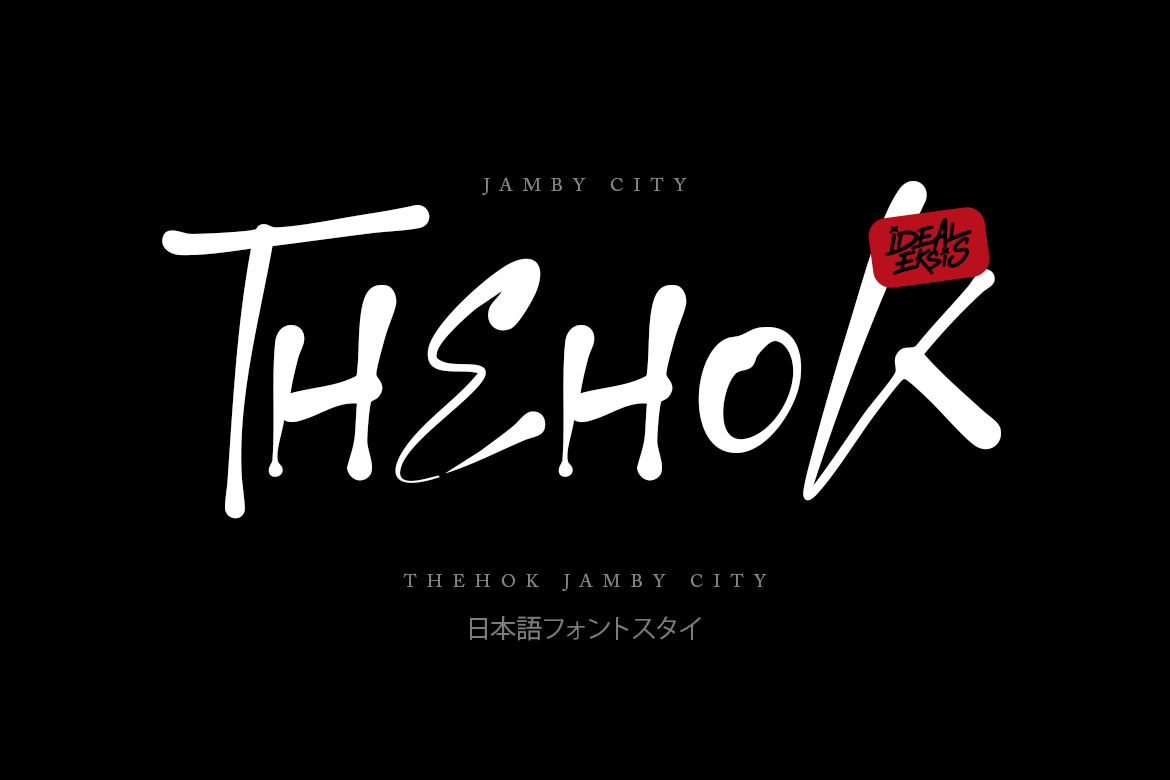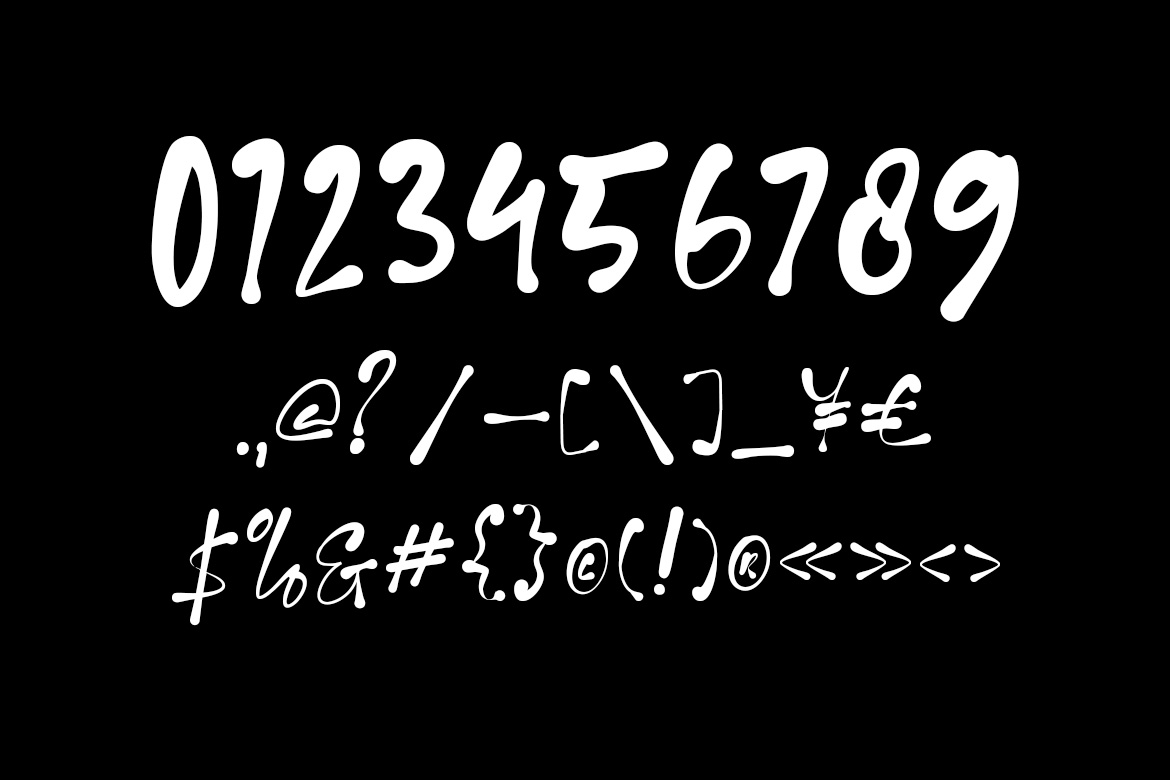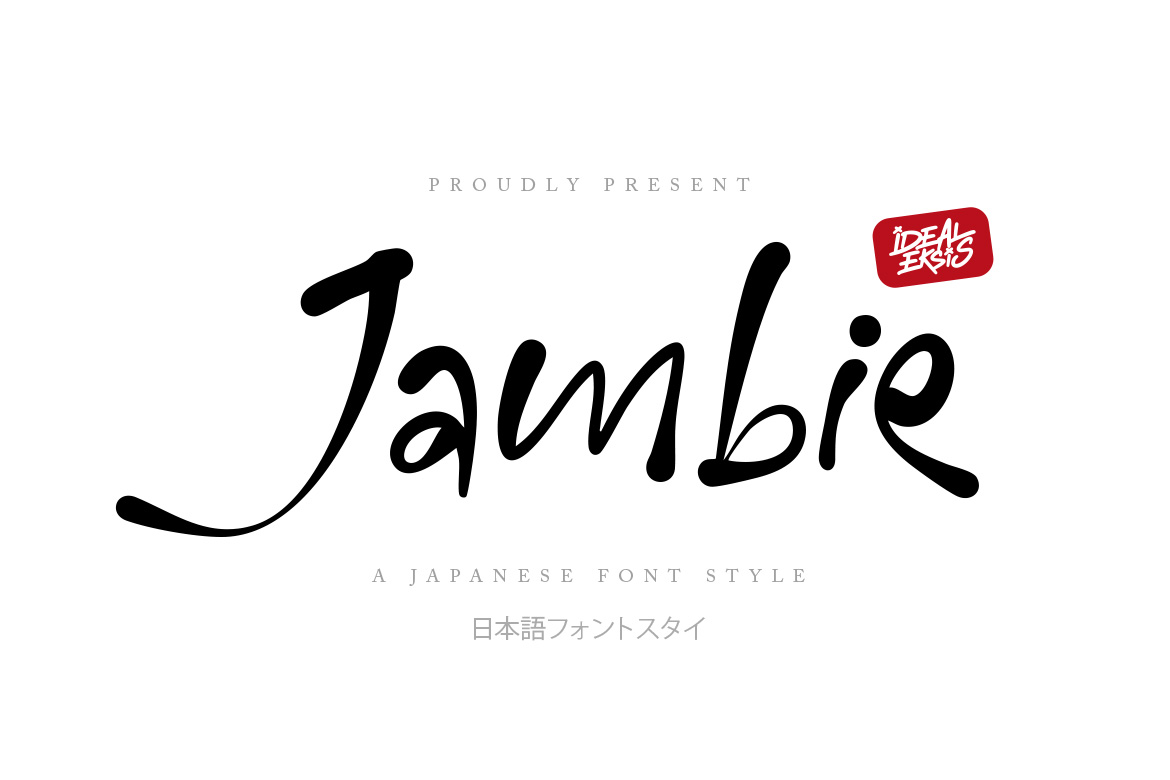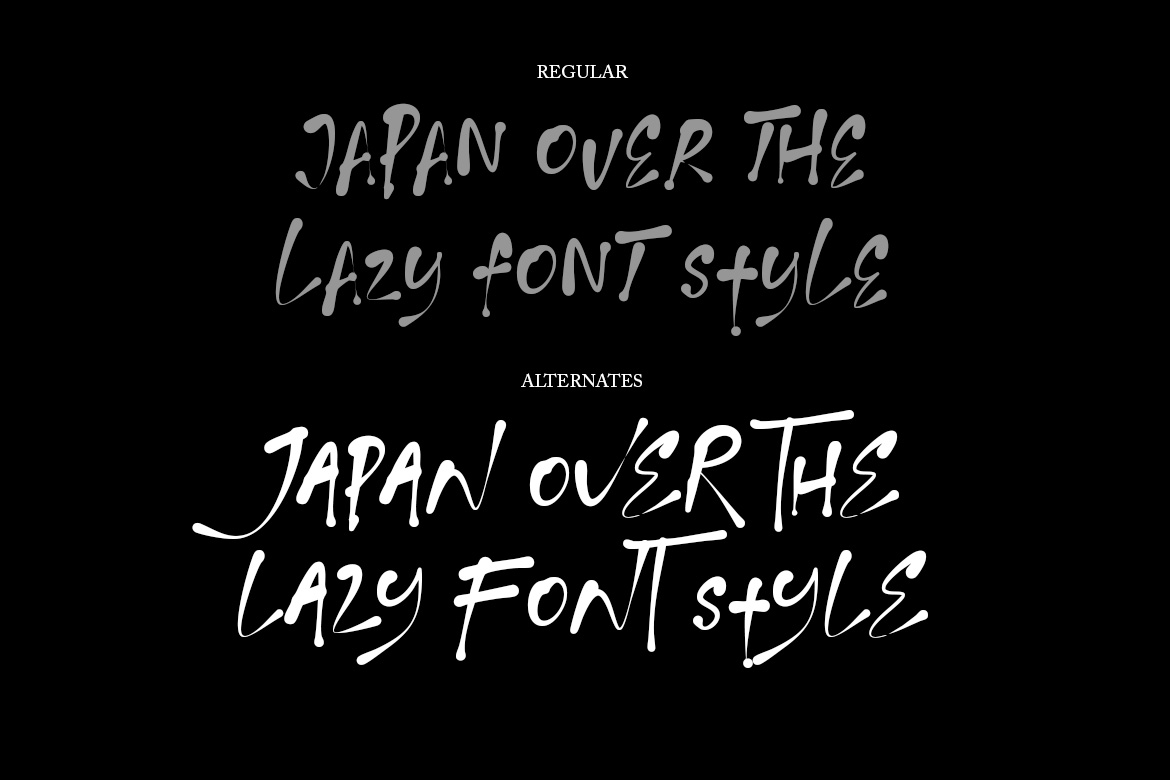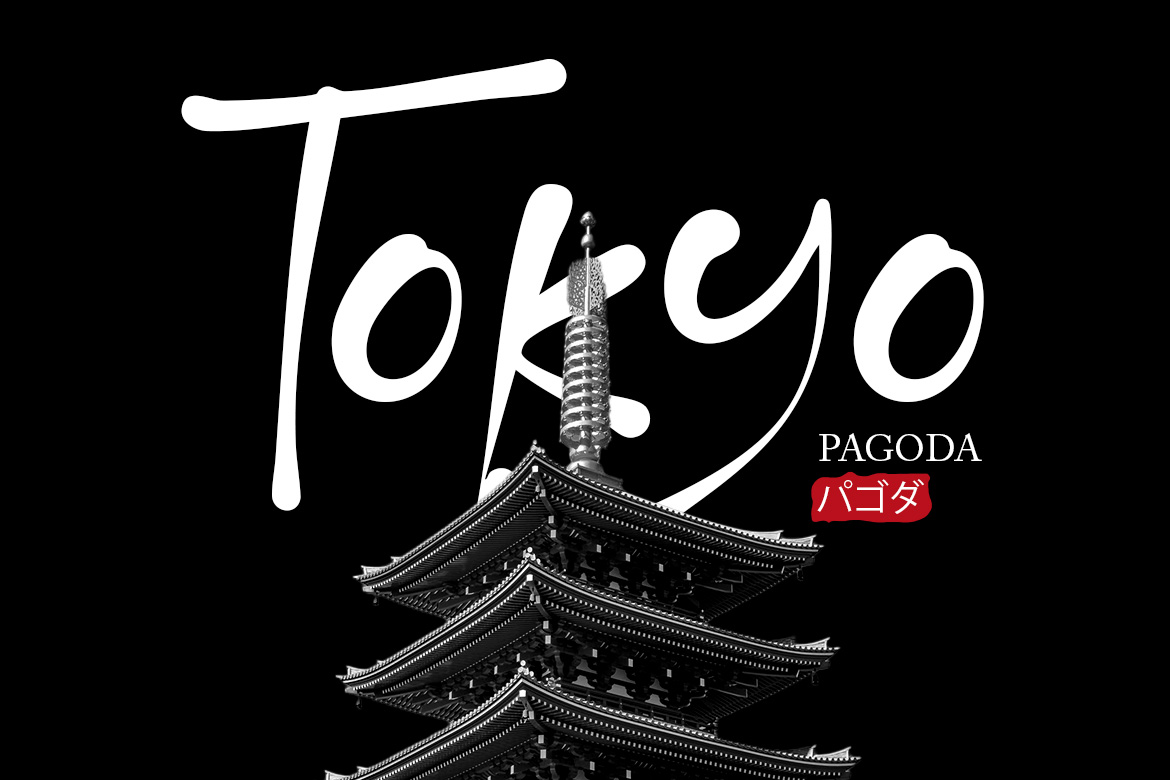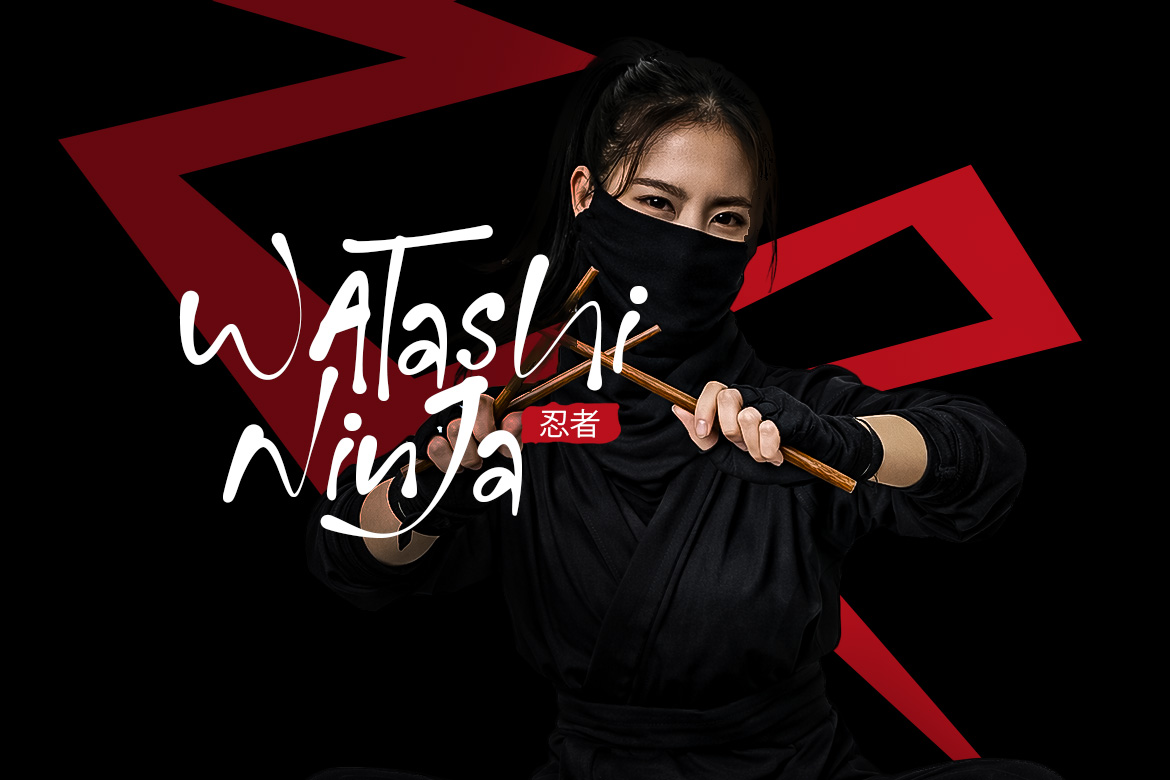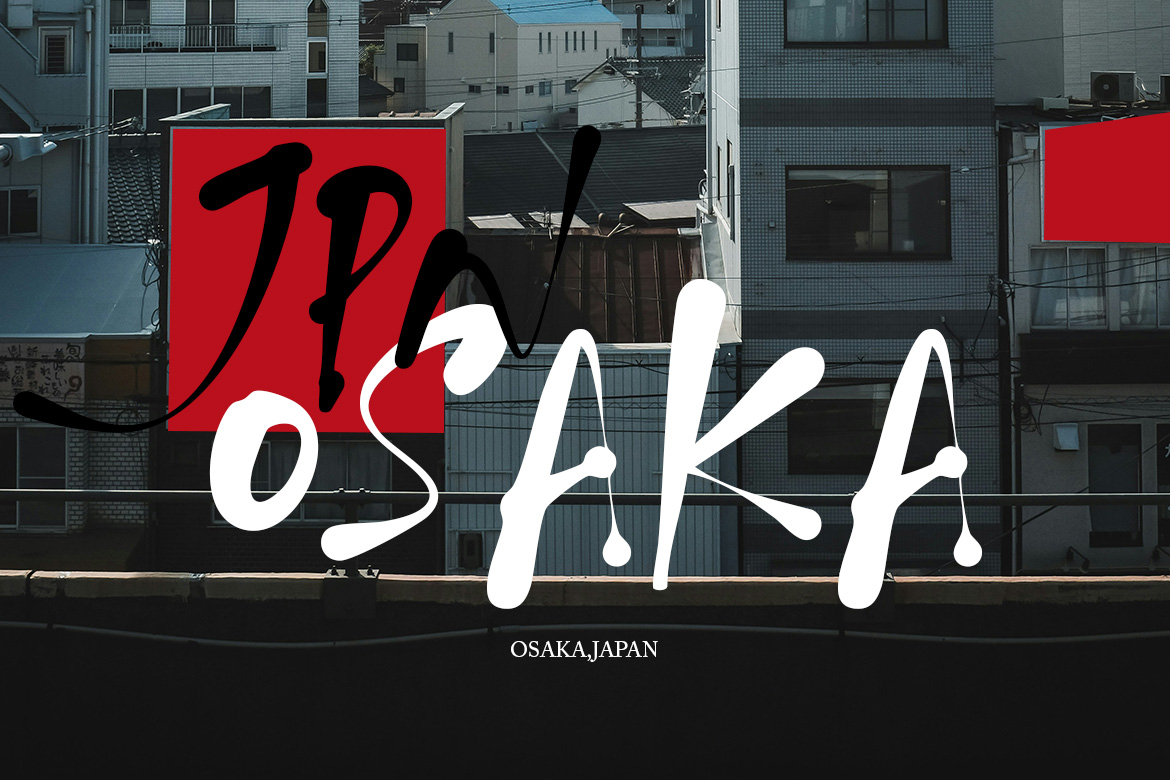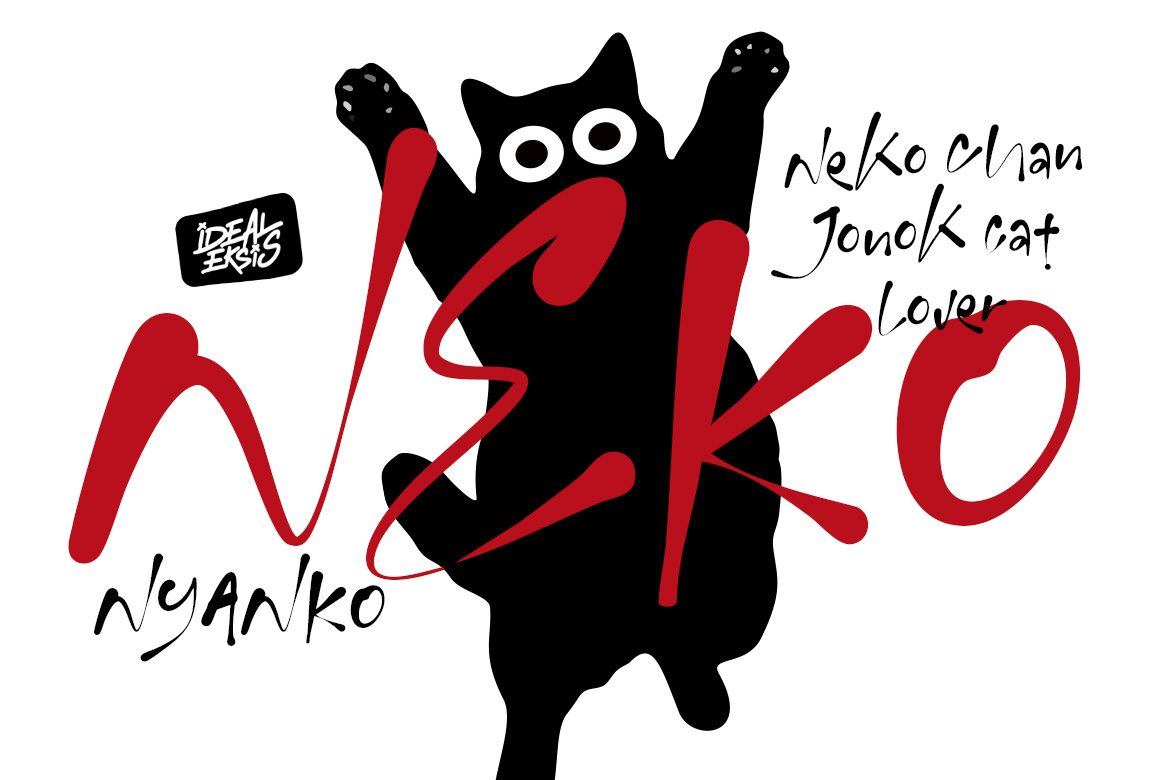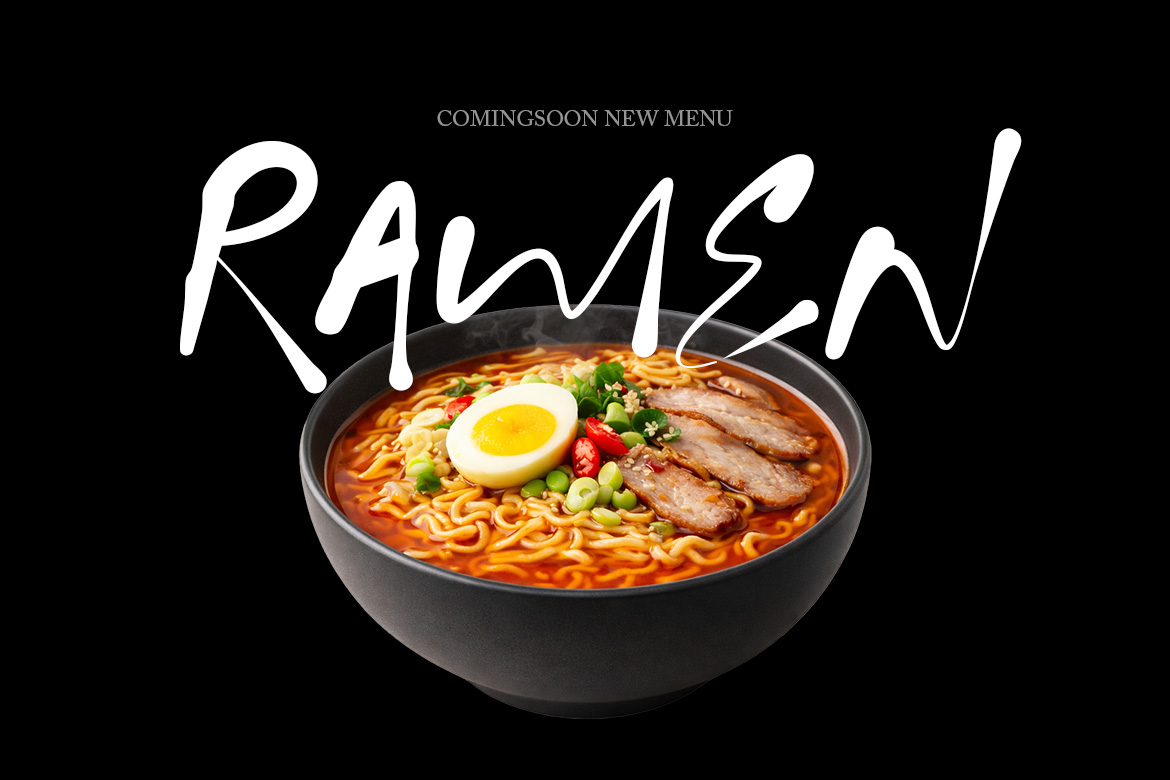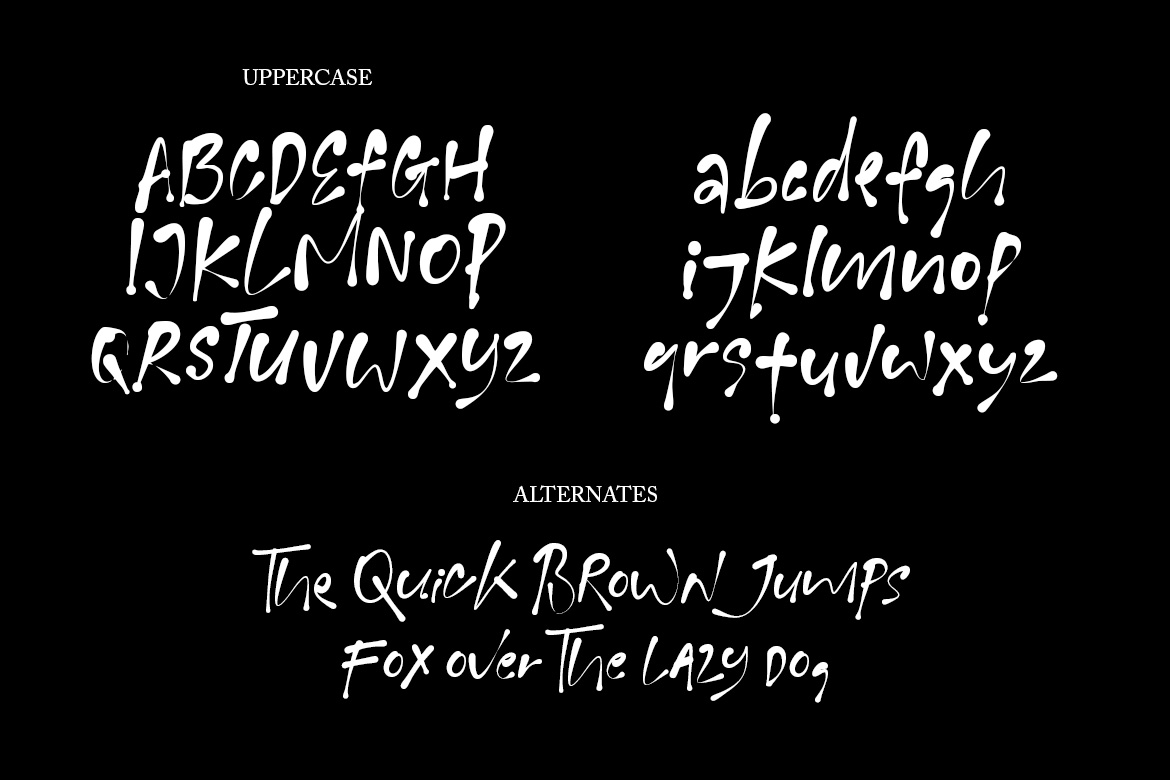
Jambie
Jambie is a dynamic typeface characterized by its fluid, brush-like strokes and organic letterforms. In Package : OTF TTF WOFF WOFF2 Feature : Uppercase Lowercase Alternate Numerals Punctuation Easy To Install